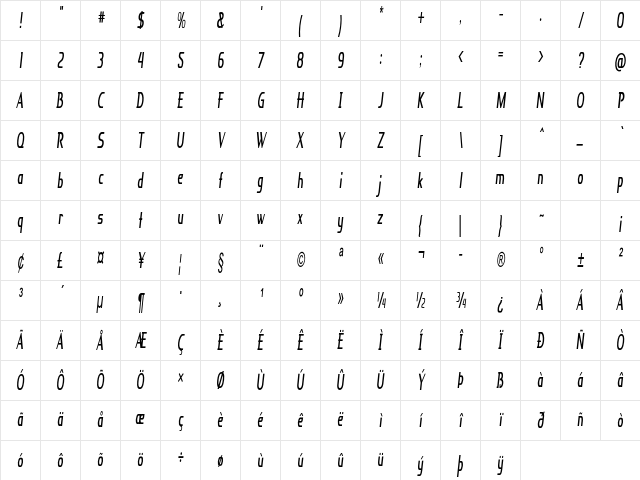
Knuckle Black Extra-condensed Italic
Style: Extra-condensed Italic
Knuckle Black Family
Knuckle Black Extra-condensed Italic
Design Context for Knuckle Black
Knuckle Black is a composed and adaptable typeface that performs quietly and consistently across a wide range of design contexts. The slanted form adds forward momentum and visual energy. Its narrow stance lets it pack a punch even in space-constrained designs.
Pro Tip: Use Knuckle Black for emphasis, pull quotes, and subheadings where its slanted energy can add rhythm to the layout.